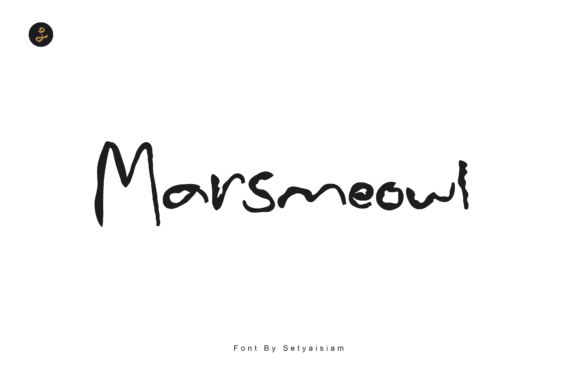
Unleash your creativity and let your words dance with style with Marsmeowl, the enchanting script font that captures the essence of handwritten elegance. Born from the desire to add a personal touch to your digital creations, Marsmeowl effortlessly blends the charm of hand-lettering with the versatility of a digital font.
With its graceful curves and playful strokes, Marsmeowl invites you on a journey of self-expression. Whether you're crafting captivating logos, designing eye-catching flyers, or engaging your audience on social media, Marsmeowl seamlessly adapts to your creative vision.
Experience the joy of crafting handwritten masterpieces without the limitations of pen and paper. Marsmeowl empowers you to effortlessly create designs that resonate with a genuine, personal touch. Its natural look adds a touch of warmth and authenticity to your projects, making them stand out in a sea of digital noise.
Dive into the world of web design and let Marsmeowl guide you in creating captivating websites that leave a lasting impression. Its elegant lines and flowing characters bring a touch of sophistication to your digital spaces, inviting visitors to explore and engage with your content.
Transform your designs into works of art with Marsmeowl. Its versatility knows no bounds, allowing you to create stunning banners that command attention and wall art that captivates the eye. Whether you're a seasoned designer or just starting your creative journey, Marsmeowl is your perfect companion, ready to elevate your projects to new heights.